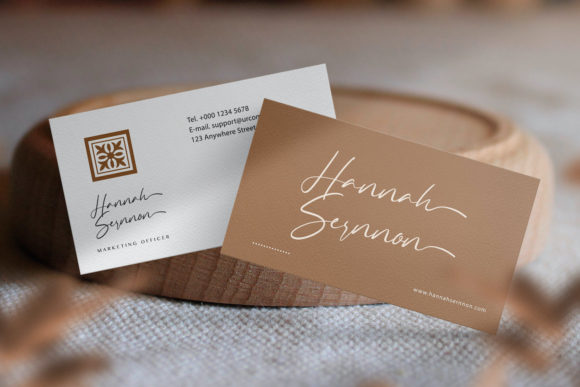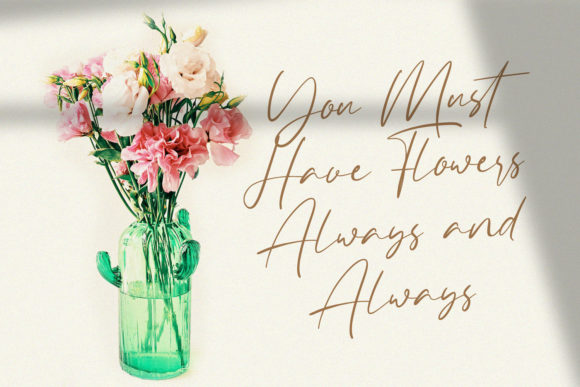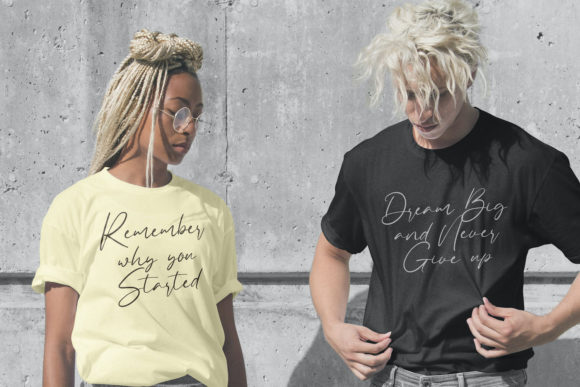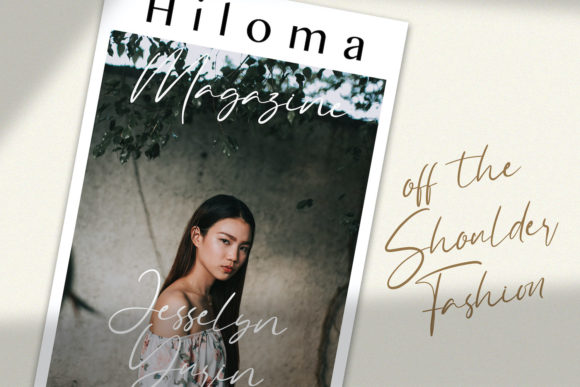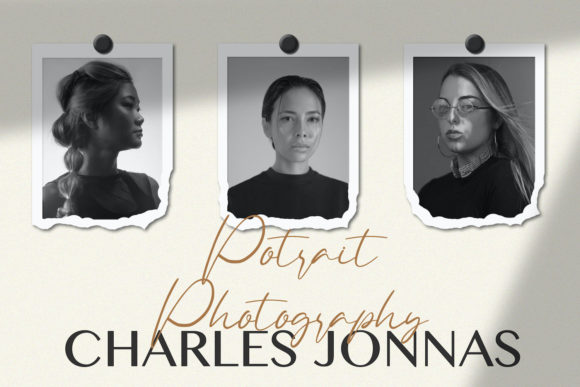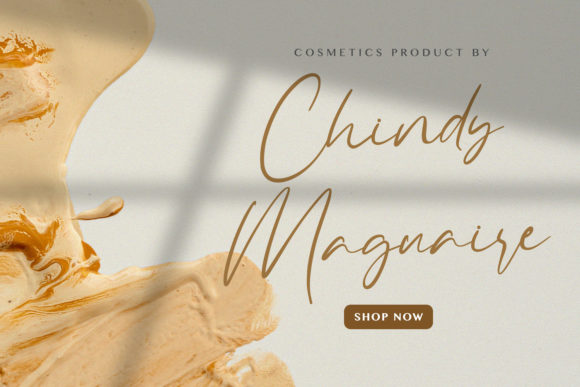
Introducing Allezia Sttacy Font: Elevate Your Designs with Elegance
Are you on the hunt for a font that exudes delicacy, elegance, and a touch of sophistication? Look no further than the Allezia Sttacy Font. This beautiful, handwritten font is designed to bring a sense of refinement and poise to your creative projects. With its flowing lines and well-balanced characters, Allezia Sttacy is the perfect addition to any designer’s toolkit.
A Delicate yet Impactful Font
Allezia Sttacy is a delicate, elegant, and flowing handwritten font that has been crafted with attention to detail. Its beautiful characters are designed to be well-balanced, making it an incredibly versatile font that can be paired with a wide range of designs. Whether you’re working on a branding project, a wedding invitation, or a packaging design, Allezia Sttacy is sure to make your ideas come alive.
One of the standout features of Allezia Sttacy is that it’s PUA (Private Use Area) encoded. This means that you can access all of the glyphs and swashes with ease, giving you complete creative control over your designs. With PUA encoding, you can effortlessly navigate the font’s extensive character set, including ligatures, alternates, and ornaments.
Allezia Sttacy’s versatility is one of its greatest strengths. This font can be used in a wide range of design applications, from:
- Digital media and social graphics
Whether you’re a seasoned designer or a crafty DIY enthusiast, Allezia Sttacy is sure to become a go-to font in your collection.
Why Choose Allezia Sttacy?
So, what sets Allezia Sttacy apart from other fonts? Here are just a few reasons why designers and crafters love this beautiful font:
- Elegant and refined: Allezia Sttacy’s delicate lines and flowing curves make it perfect for designs that require a touch of sophistication.
- Versatile: This font pairs well with a wide range of designs, from modern and minimalist to vintage and ornate.
- Easy to use: With PUA encoding, accessing glyphs and swashes is a breeze.
- High-quality: Allezia Sttacy is a carefully crafted font with beautiful, well-balanced characters.
Get Creative with Allezia Sttacy